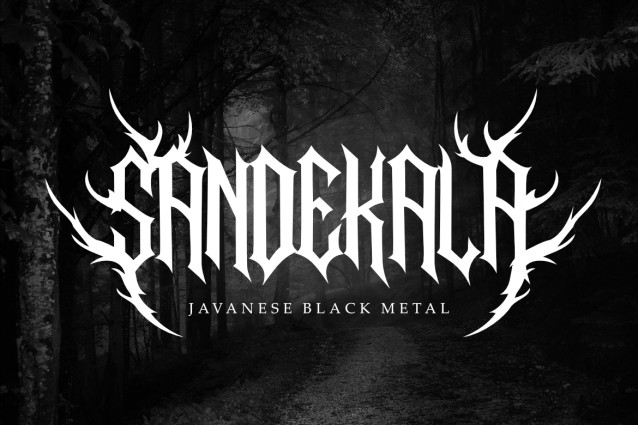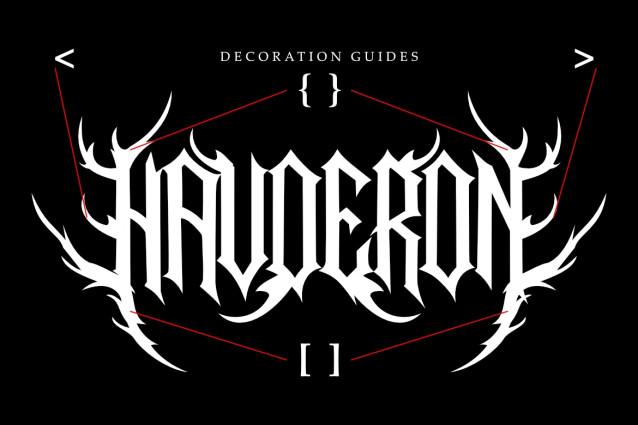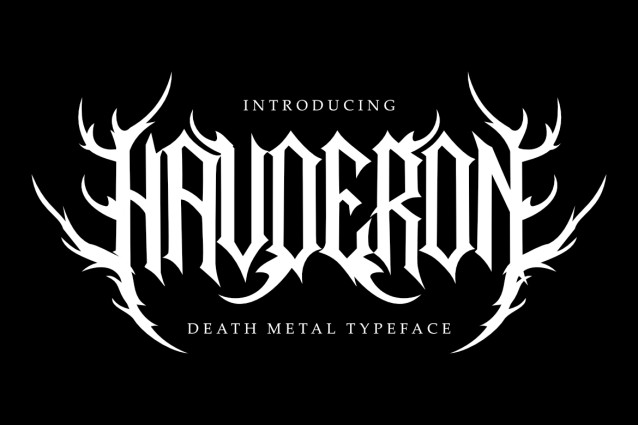
Haveron Font
Brutal Death Metal Font for Band Logos, Album Covers & Extreme Branding Haveron is an intense, raw, and aggressive death metal typeface engineered for extreme music culture and dark visual arts. Inspired by classic blackletter typography and underground metal aesthetics, this font features sharp spiky letterforms, intricate roots, and jagged ornaments that radiate pure dark energy.
Its heavy-impact structure and chaotic spiky details deliver an uncompromising visual identity, making it the definitive choice for underground music projects and heavy visual branding. Whether you are designing iconic band logos, extreme metal album covers, festival posters, dark streetwear apparel, or horror merchandise, Haveron ensures your design commands a formidable and authoritative presence.
Designed for maximum raw impact, Haveron empowers metal bands, underground illustrators, and graphic artists to create legendary, dark-themed visual art across digital and print mediums. Main Features: Authentic extreme death metal and blackletter display style. Sharp, intricate spiky letterforms and decorative thorns. Ideal for band logos, album covers, merch, and horror art. High-impact visual presence for extreme music branding.
This font is created for dark, aggressive, extreme, and heavy visual designs. It is suitable for death metal artwork, band logos, album covers, posters, merchandise, apparel, branding, and other creative projects.